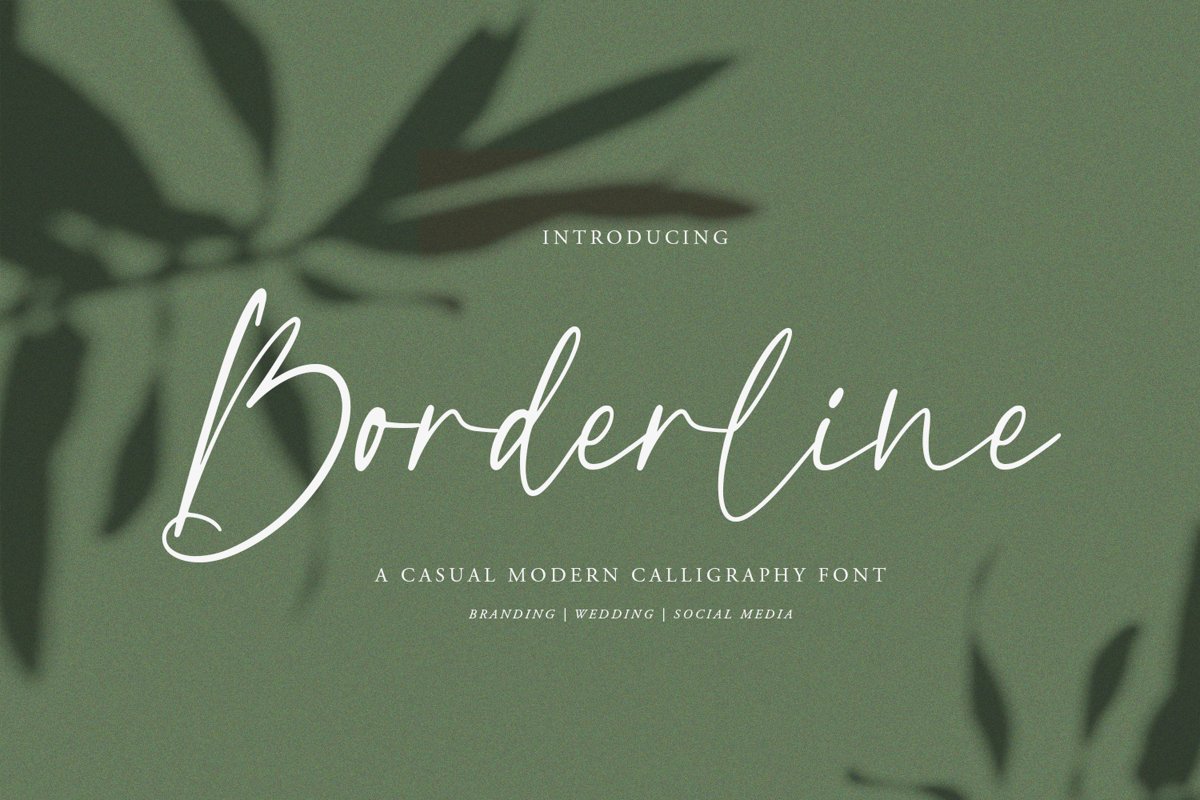
Borderline | Calligraphy Font
Borderline
Borderline casual Calligraphy Font that is luxurious in a casual and distinctive style that is perfect for your branding design, and will also be very beautiful in your wedding invitations and business cards and especially for your brand name logotype
Borderline casual Calligraphy Font has beautiful Uppercase and Lowercase, figures and ligature standards that are very realisticThere it is!